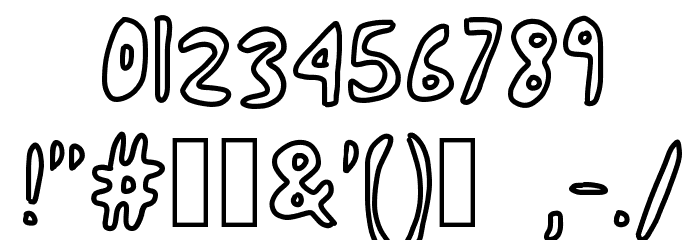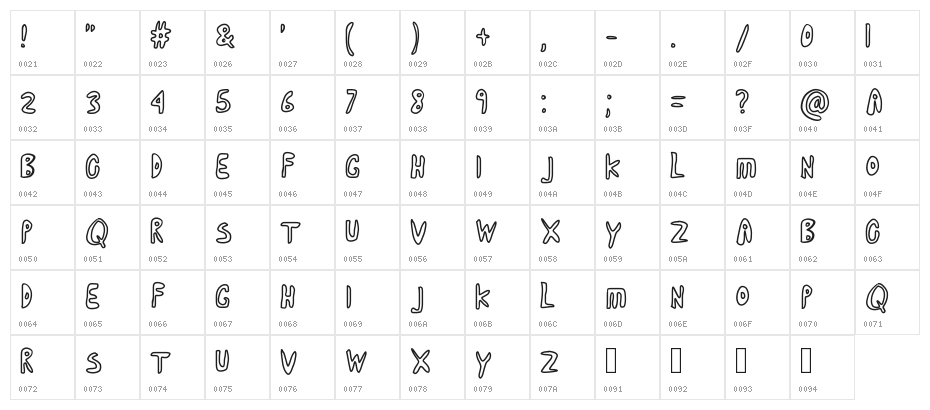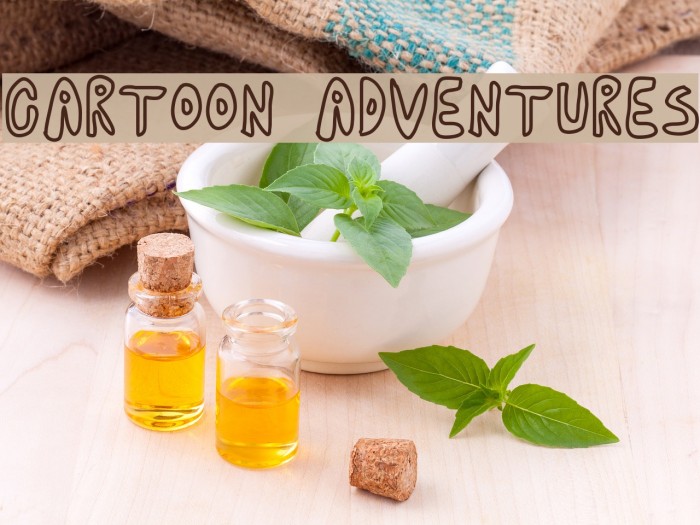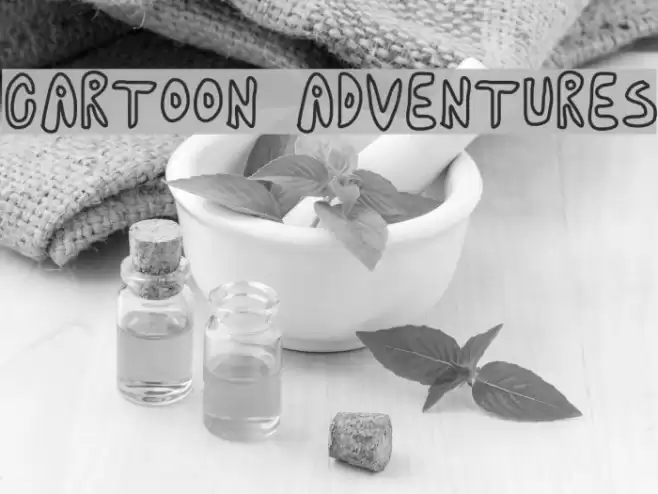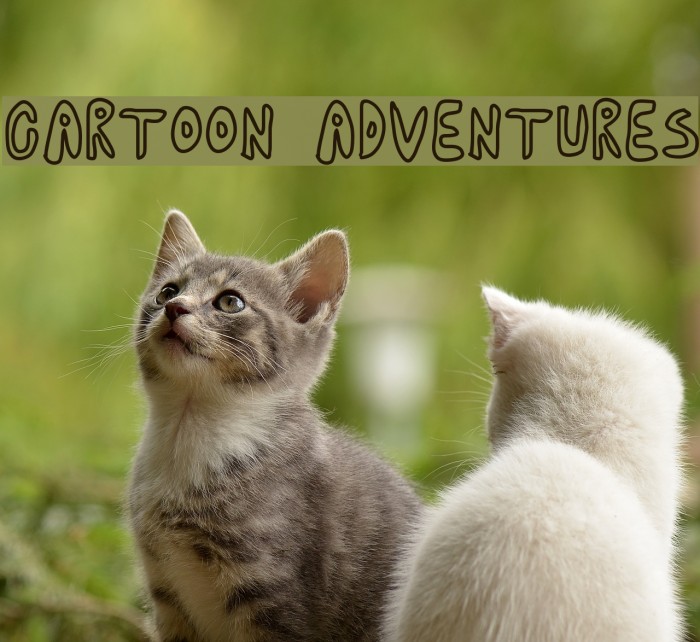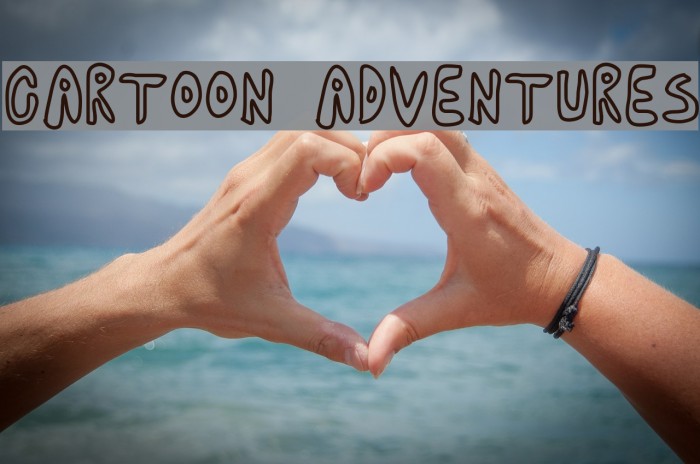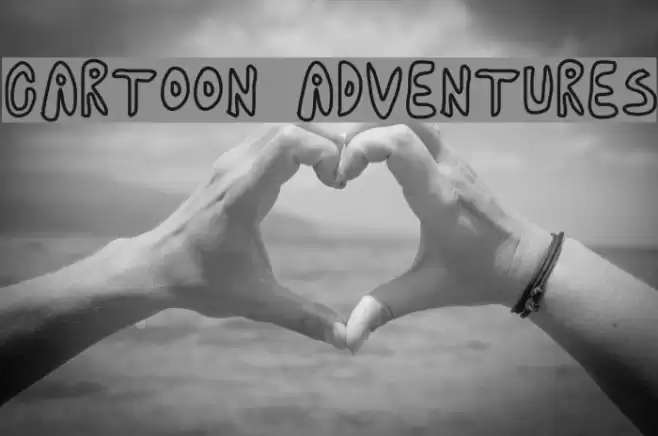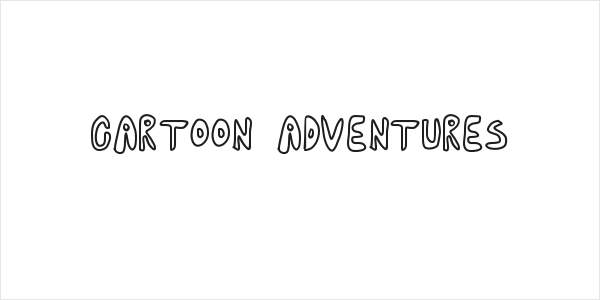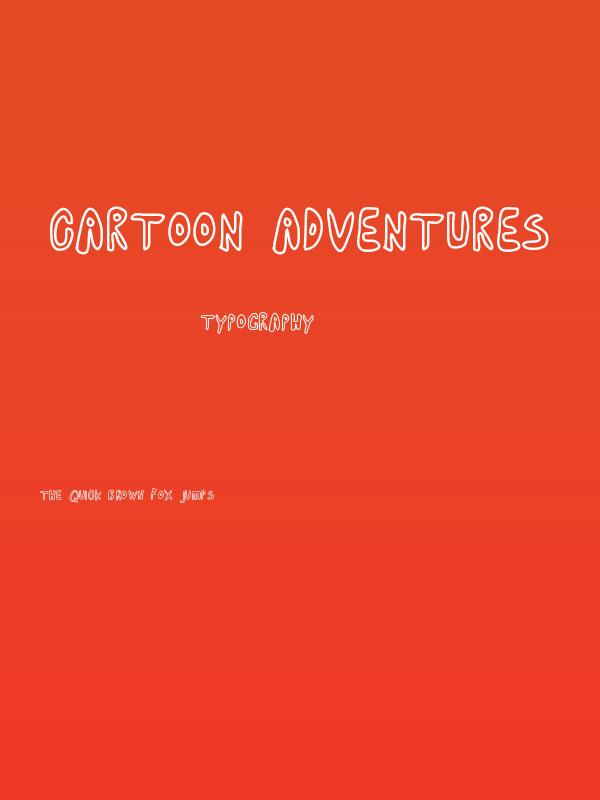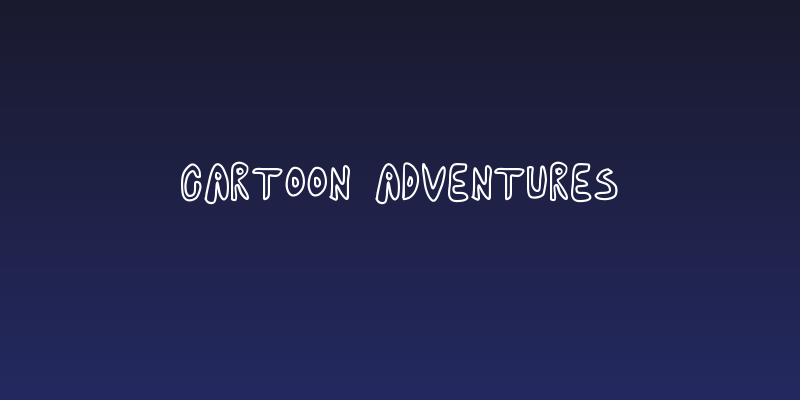
cartoon adventures Font
cartoon adventures Description
This playful and whimsical font features bold, rounded characters with a hand-drawn appearance. The letters are slightly irregular, adding to their charm and making them ideal for informal and fun designs. The uppercase and lowercase letters maintain a consistent style, with a slight variation in size and shape that enhances the font's quirky personality. Numbers and special characters are included, following the same playful design. The font's thick outlines and soft curves give it a friendly and approachable feel, perfect for projects aimed at children or for adding a touch of humor and lightheartedness to any design.
| Overall Style | Whimsical, Playful |
| Proposed Projects | Ideal for children's books, comic strips, playful branding, and fun event invitations. |